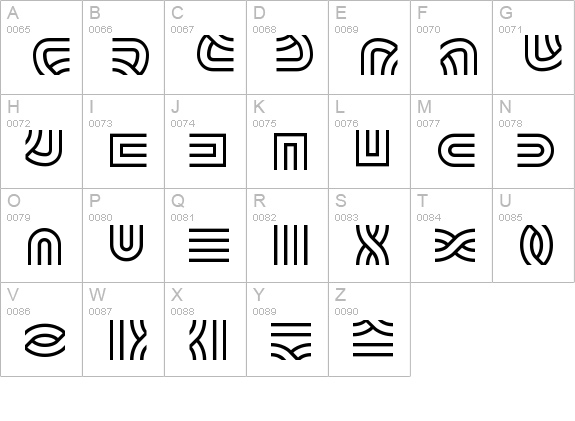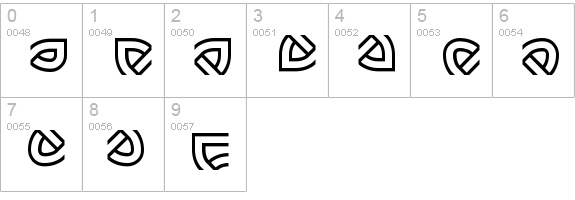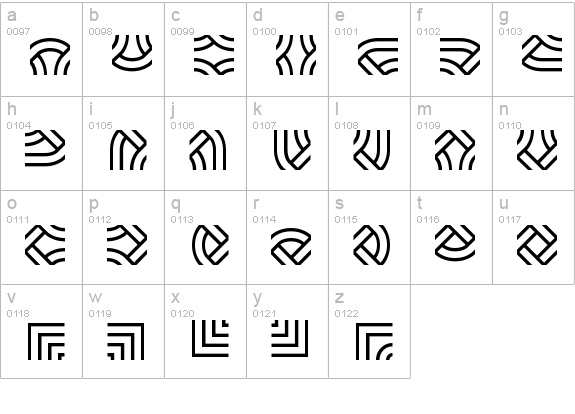
Knot Maker BRK Font Details
Knot Maker BRK font is a unique and intricate typeface that exudes creativity and craftsmanship. With its elaborate knot-like designs, this font adds a touch of elegance and sophistication to any project. The intertwining lines and loops create a visually captivating appearance that is sure to make your text stand out. Best of all, Knot Maker BRK font is available for free download at FontsMarket.com. This means you can easily add this stunning font to your collection without having to spend a dime. Whether you're looking to create stunning graphics, eye-catching logos, or impressive headlines, Knot Maker BRK font is sure to impress with its intricate details and artistic flair. Download it today and elevate your designs to the next level!